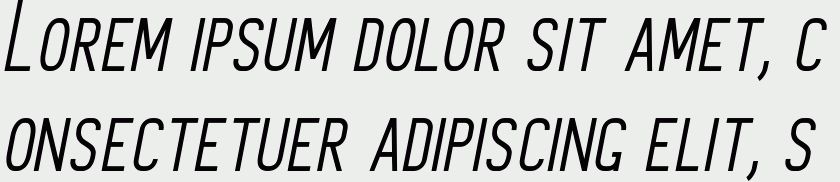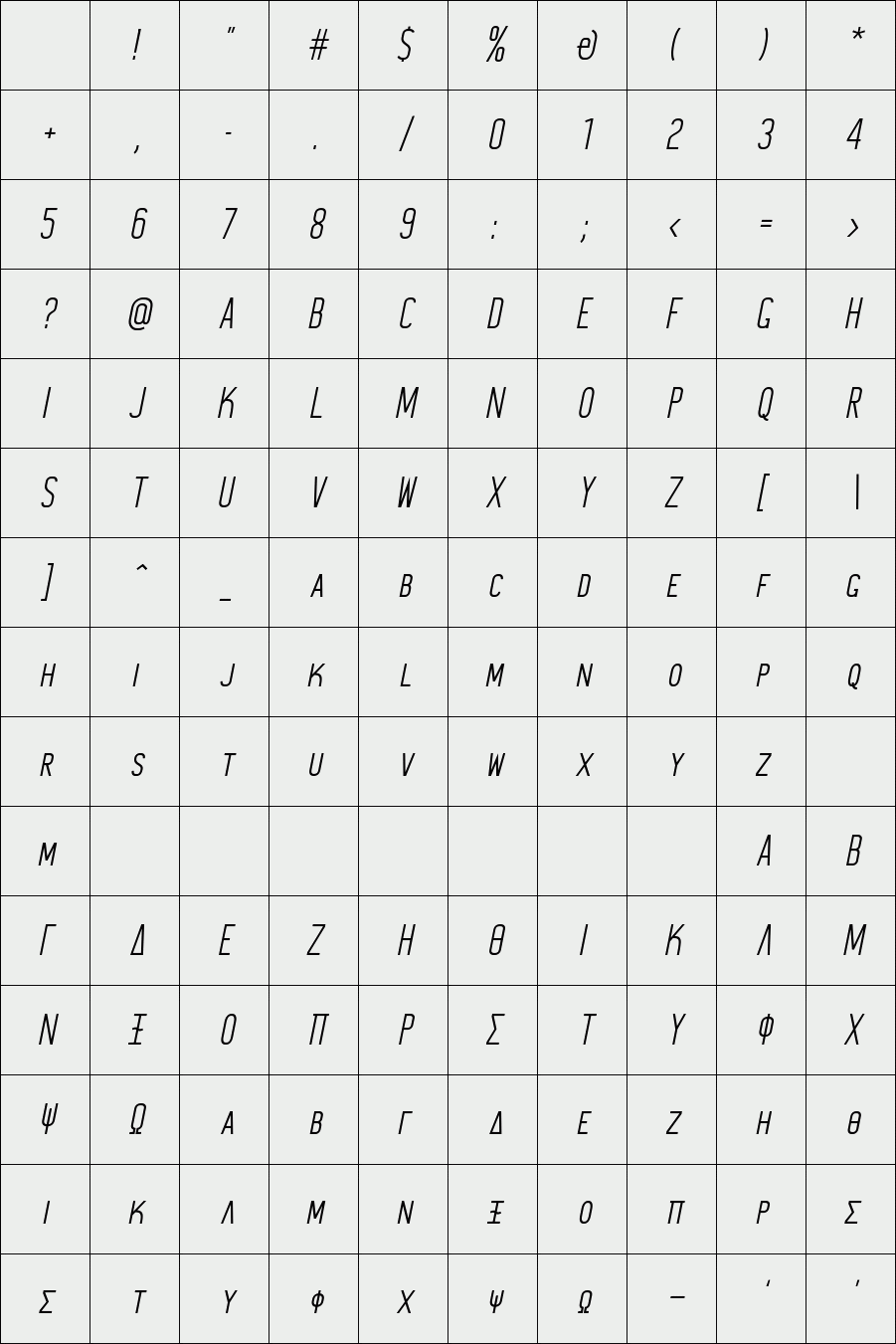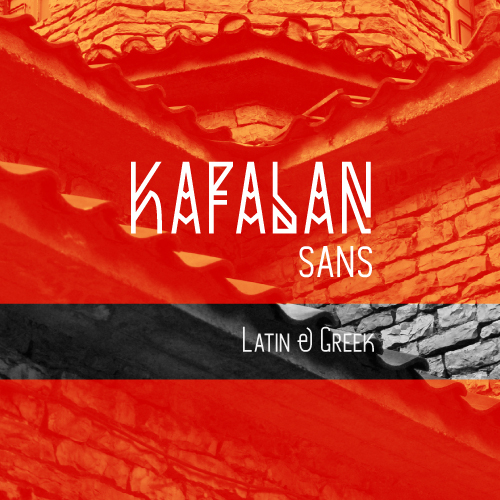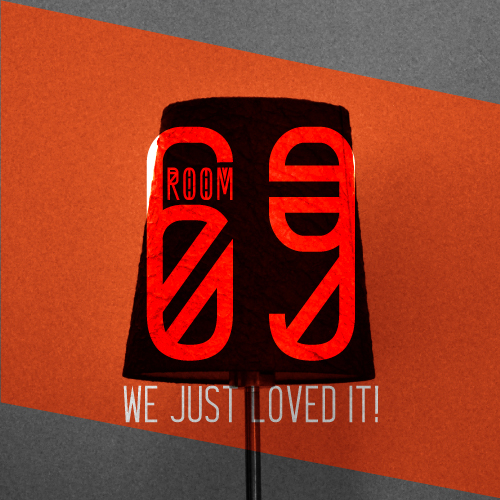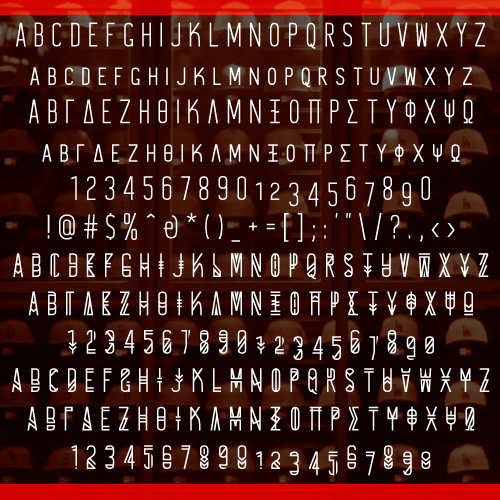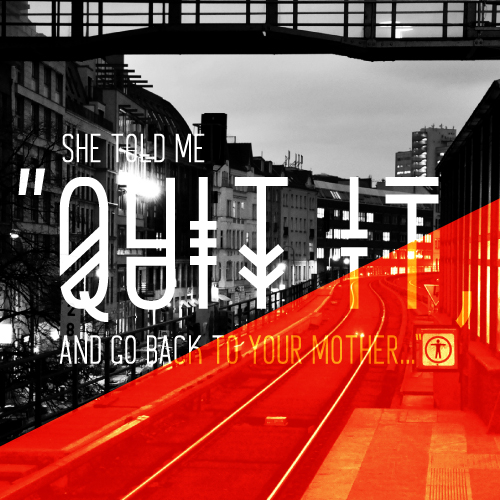
Kafalan Sans
/ Kafalan Sans Italic
Kafalan Sans is the sans version of the Kafalan family, a decorative compressed font that supports English and Greek. It features small caps instead of lowercase letters, and two additional alternative glyphs for each uppercase letter and number. It also supports oldstyle numbers and the first alternative uppercase letters are accessed as opentype alternates.
Features:
- Standard letters with small caps
- Alternative alphabet
- Regular & italics
- Special characters
- Numbers
Features:
- Standard letters with small caps
- Alternative alphabet
- Regular & italics
- Special characters
- Numbers